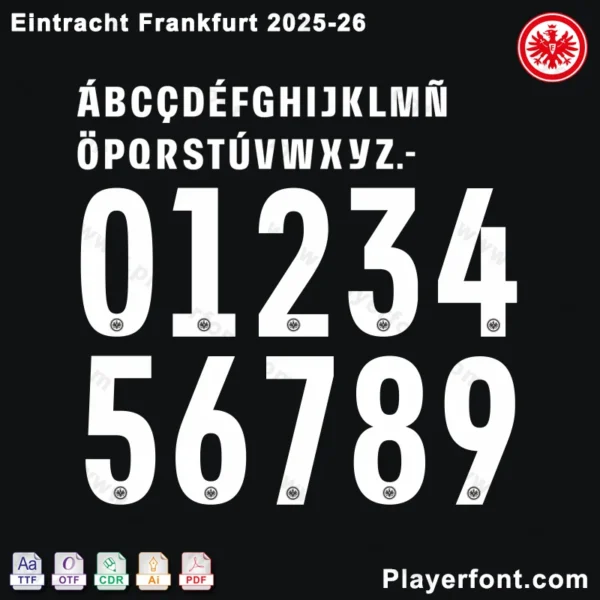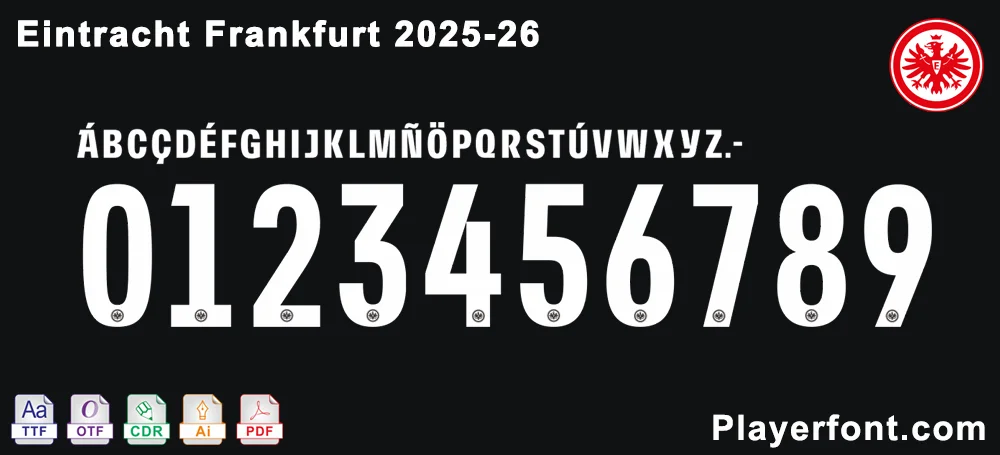
Eintracht Frankfurt 2025-2026 Font Download
Eintracht Frankfurt 2025-26 Font Preview: Full Number Set (Official Club Kit Typography for Design/Printing)
Official Eintracht Frankfurt 2025-26 font: full number set (club kit style).
Eintracht Frankfurt 2025-26 Font Display: Letters & Numbers (Official Club Kit Typography)Eintracht Frankfurt 2025-2026 Font Download